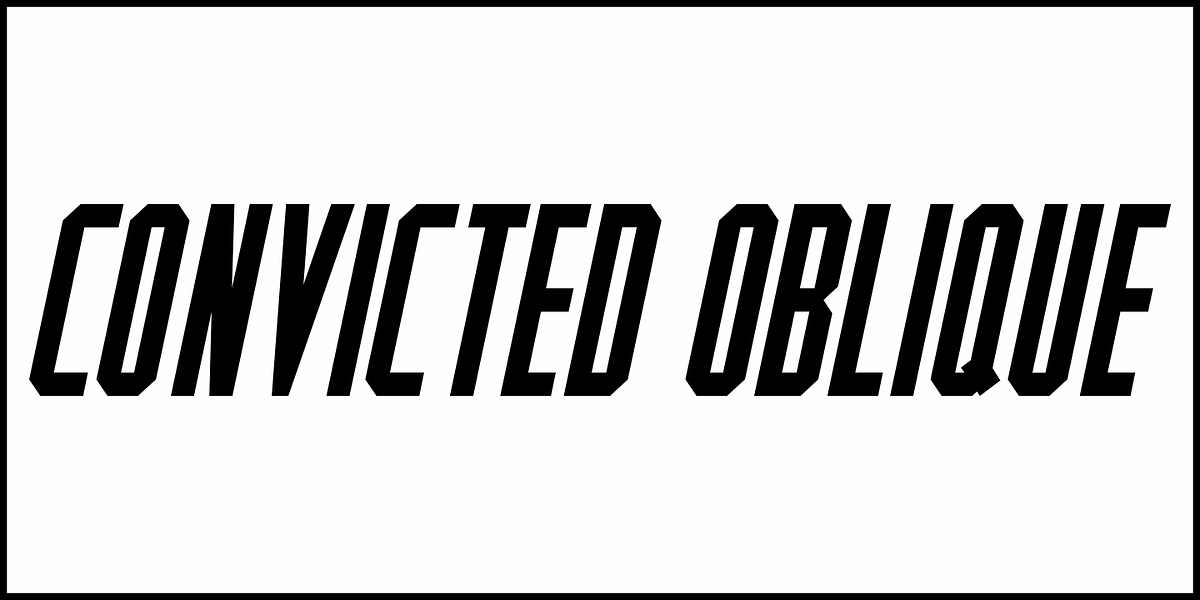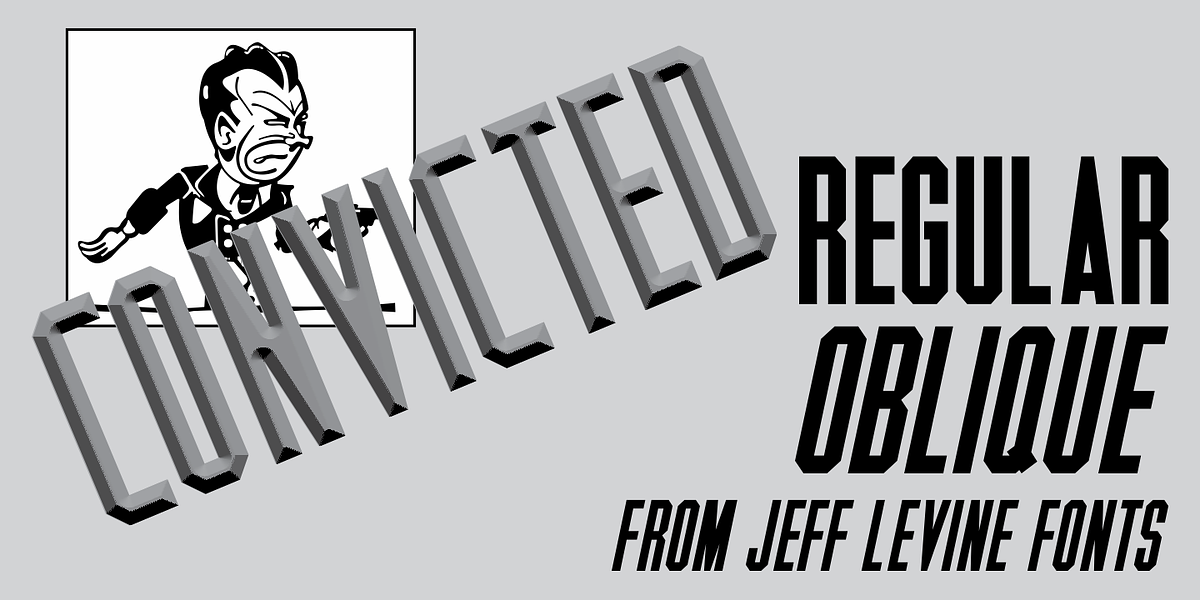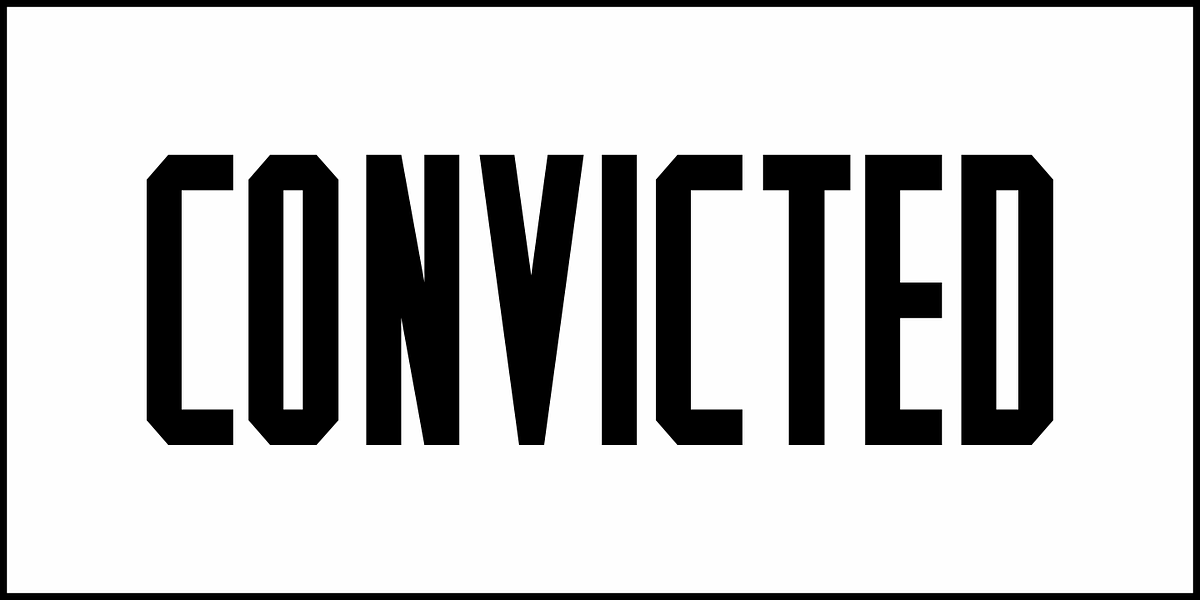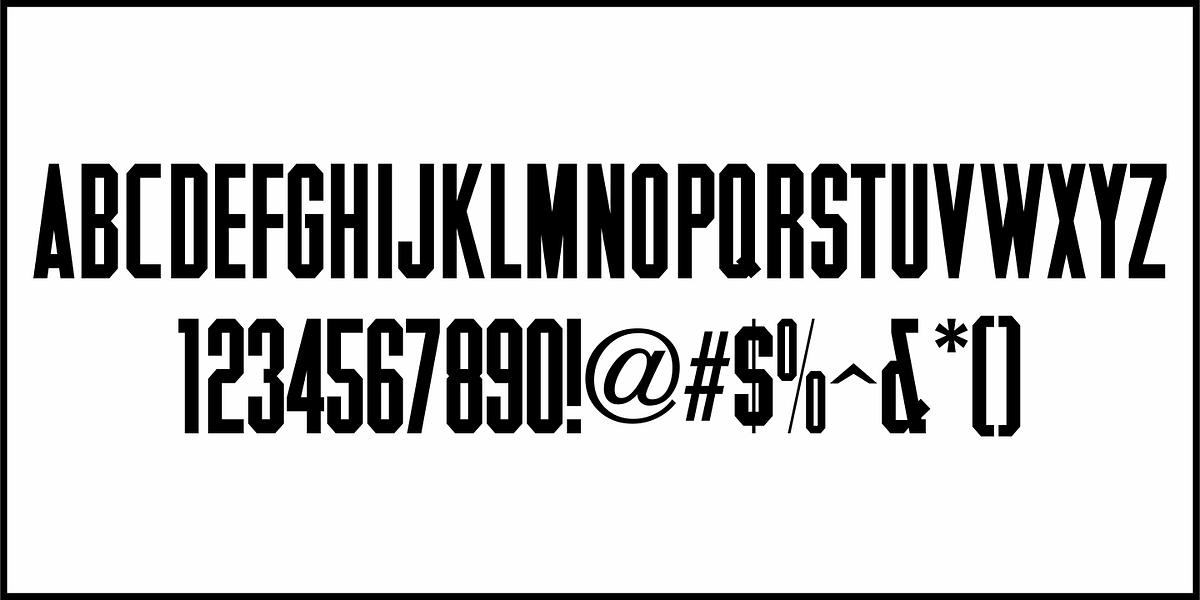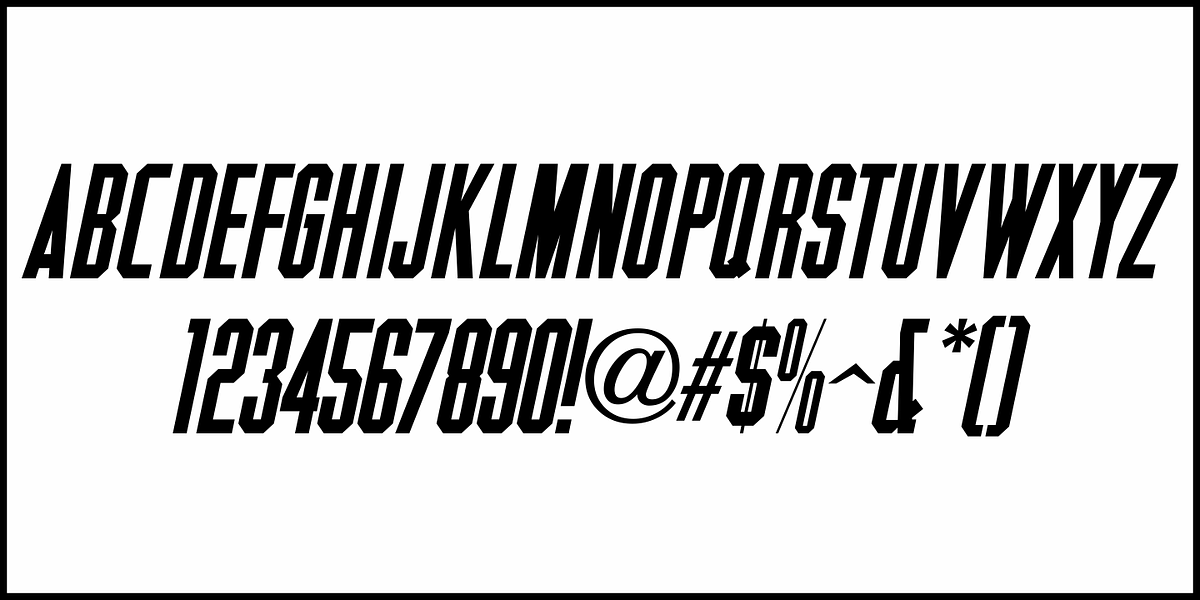
Convicted JNL
Convicted JNL is a condensed, chamfered sans serif type design inspired by opening credits from the 1940 film of the same name – available in both regular and oblique versions.